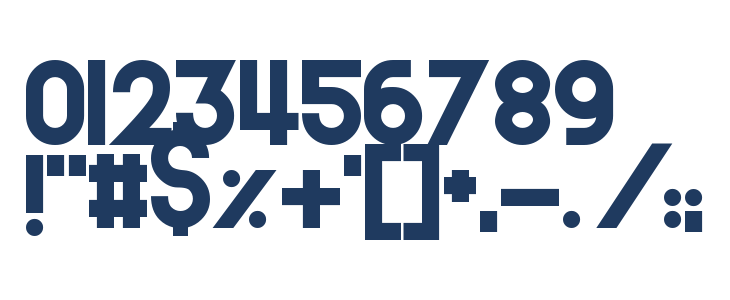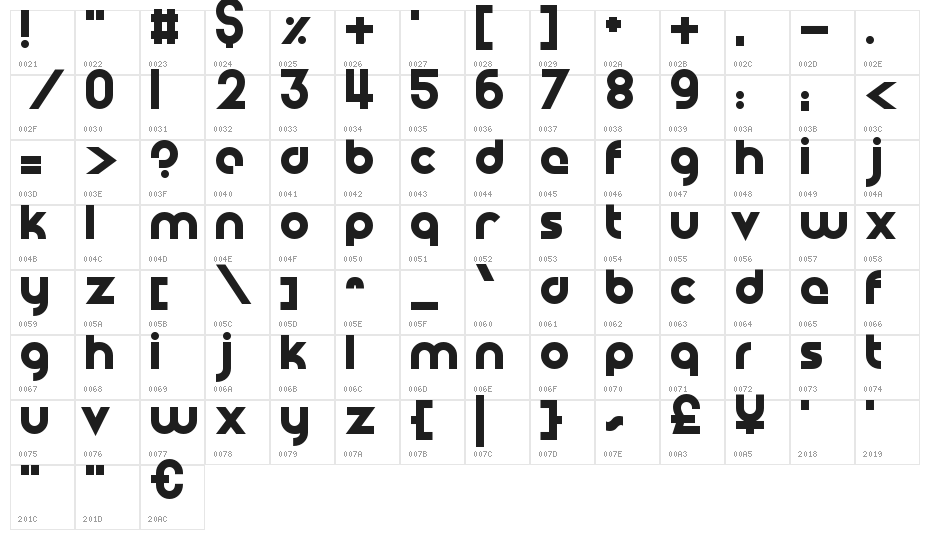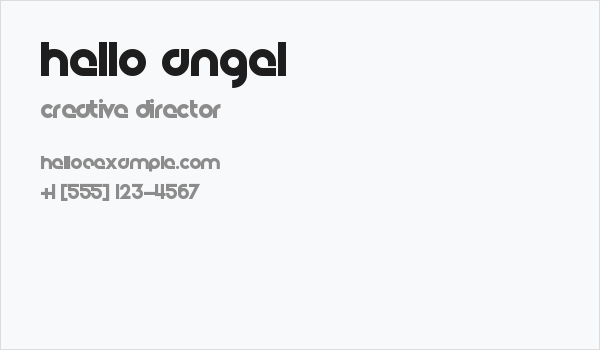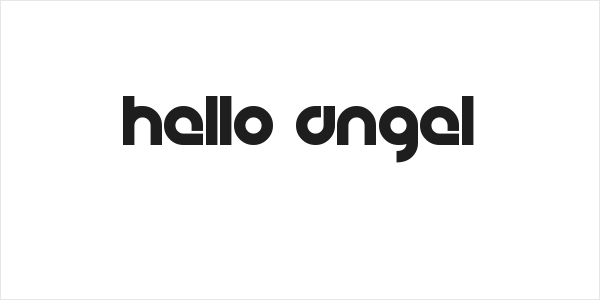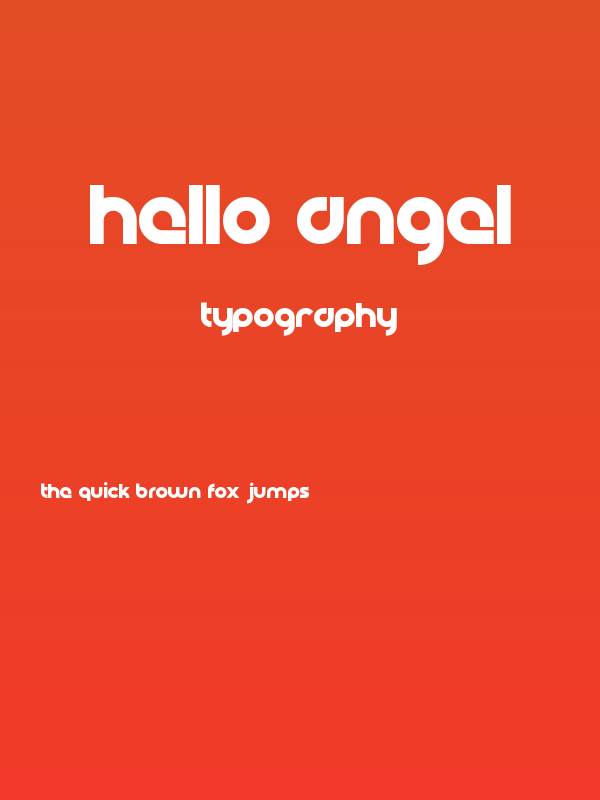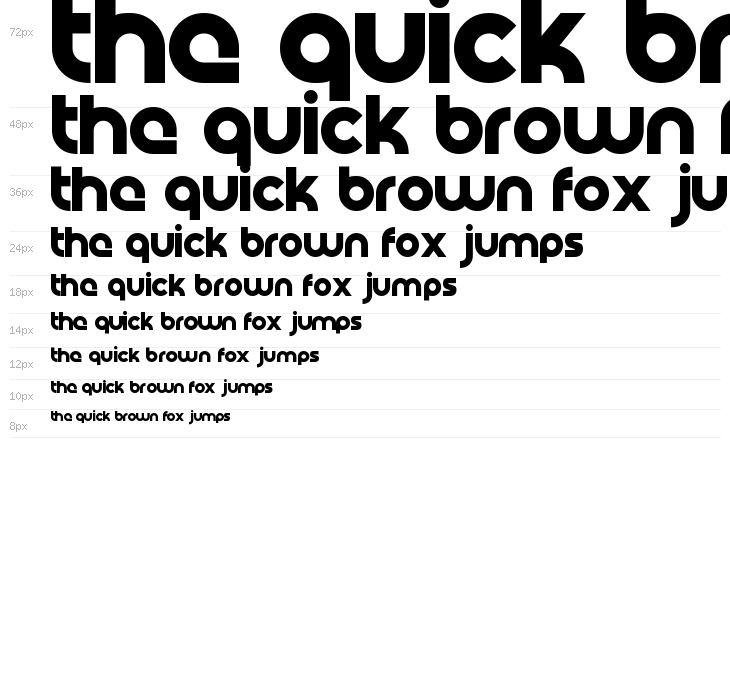
Hello Angel Font
Hello Angel Description
This font features a bold, geometric sans-serif style with a modern and clean aesthetic. The characters are uniformly thick, providing a strong presence and clear readability. The rounded edges and uniform stroke widths give it a friendly and approachable feel, while maintaining a professional look. The numbers and special characters are consistent with the overall design, ensuring a cohesive appearance across all text elements. This font is versatile, suitable for both digital and print media, and can be used effectively in various design contexts.
| Use Case | Headlines, Logos, Branding |
| Proposed Projects | Ideal for branding, advertising, headlines, and digital media projects. |